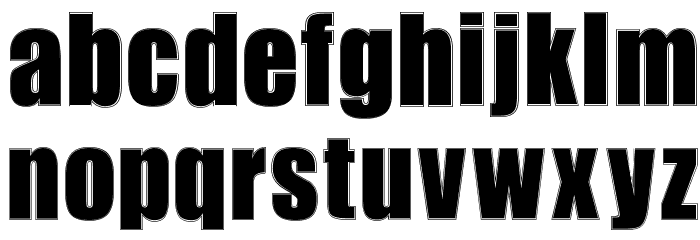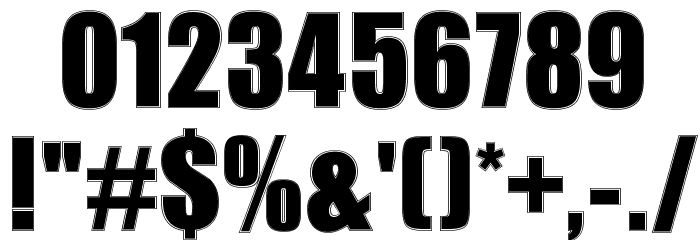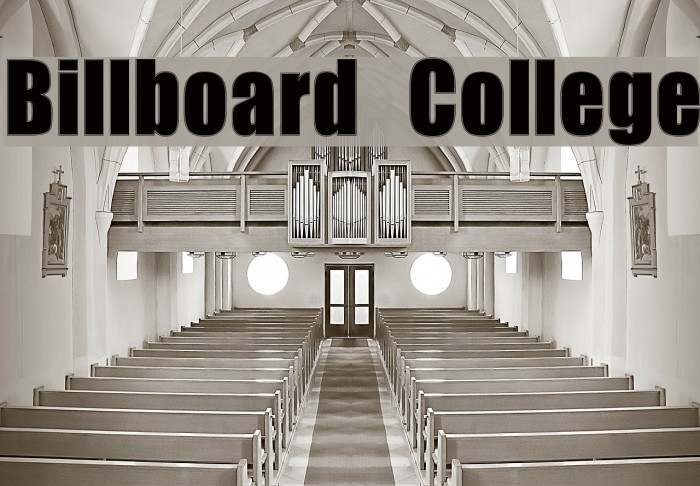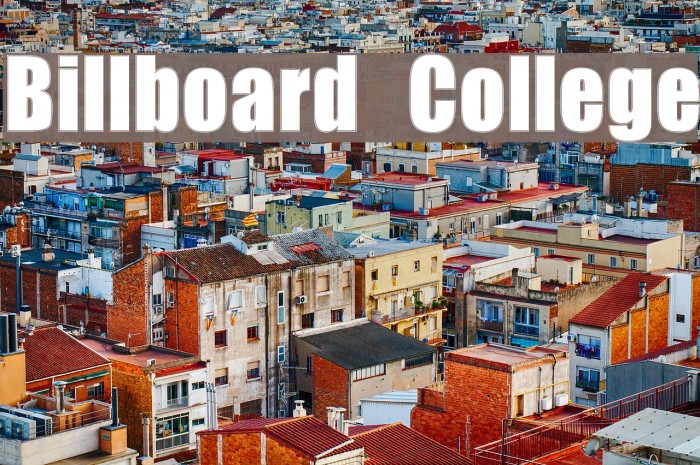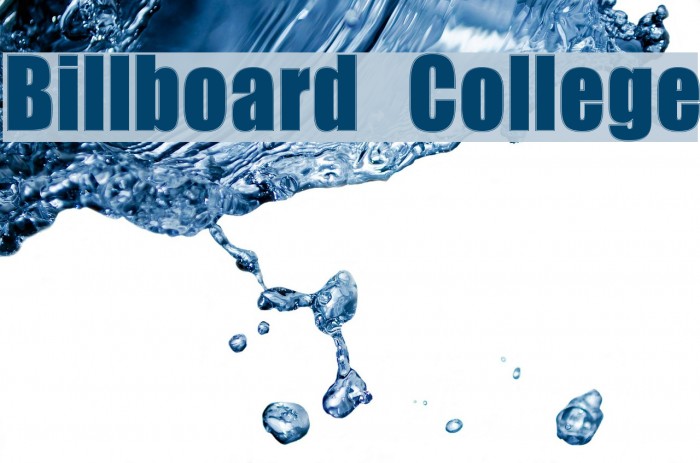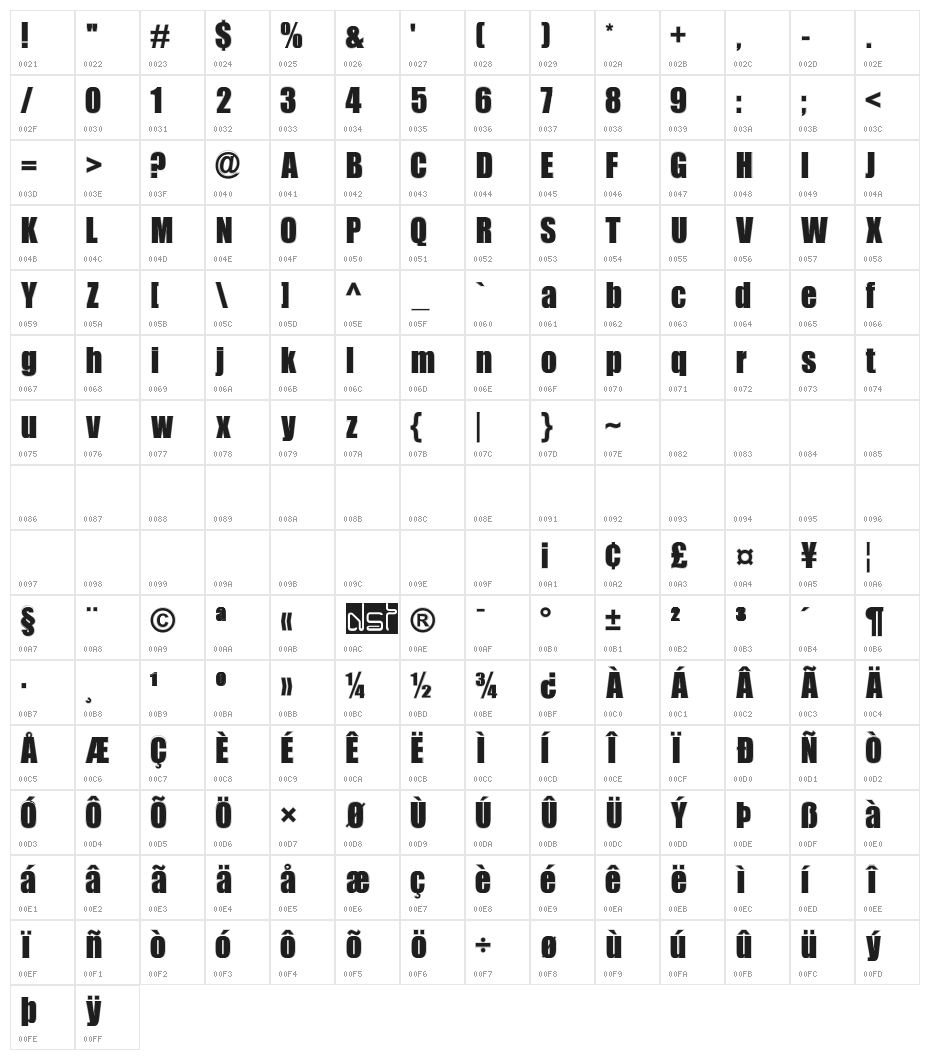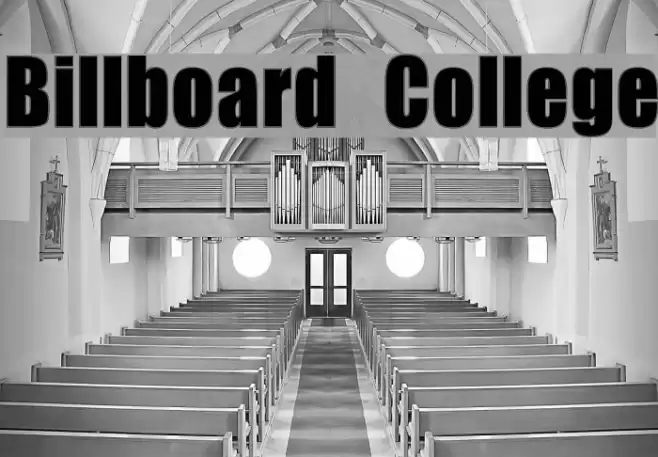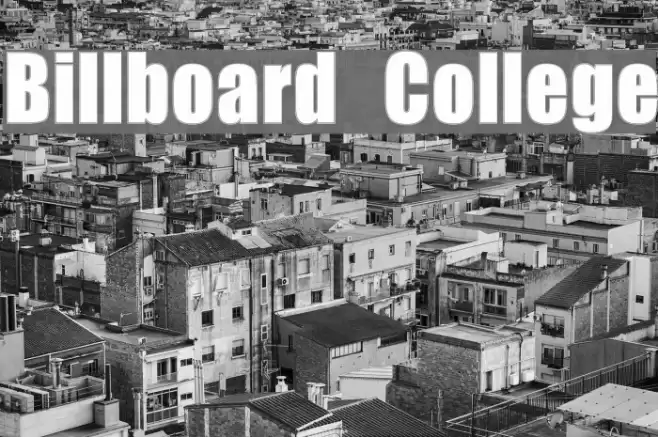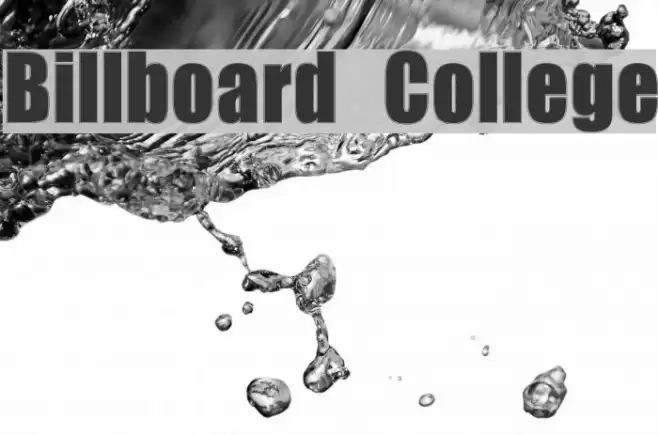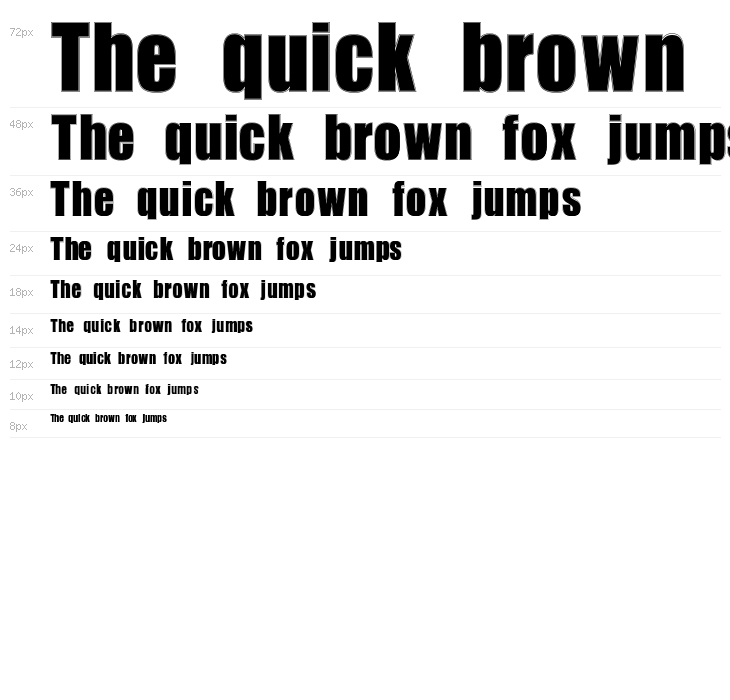
Billboard College Font
This bold and impactful font features thick, block-like characters that convey strength and presence. The uppercase letters are particularly striking, with a uniform height and width that create a cohesive look. The lowercase letters maintain the same boldness, ensuring readability and consistency across different text sizes. The numerals are equally robust, making them ideal for attention-grabbing displays. Special characters are designed with the same bold style, ensuring they stand out in any context. This font's strong lines and solid appearance make it perfect for projects that require a commanding visual element.
A bold, impactful font with thick, block-like characters ideal for strong visual presence.
- Proposed Projects: Ideal for posters, billboards, headlines, and any project requiring a strong, attention-grabbing font.